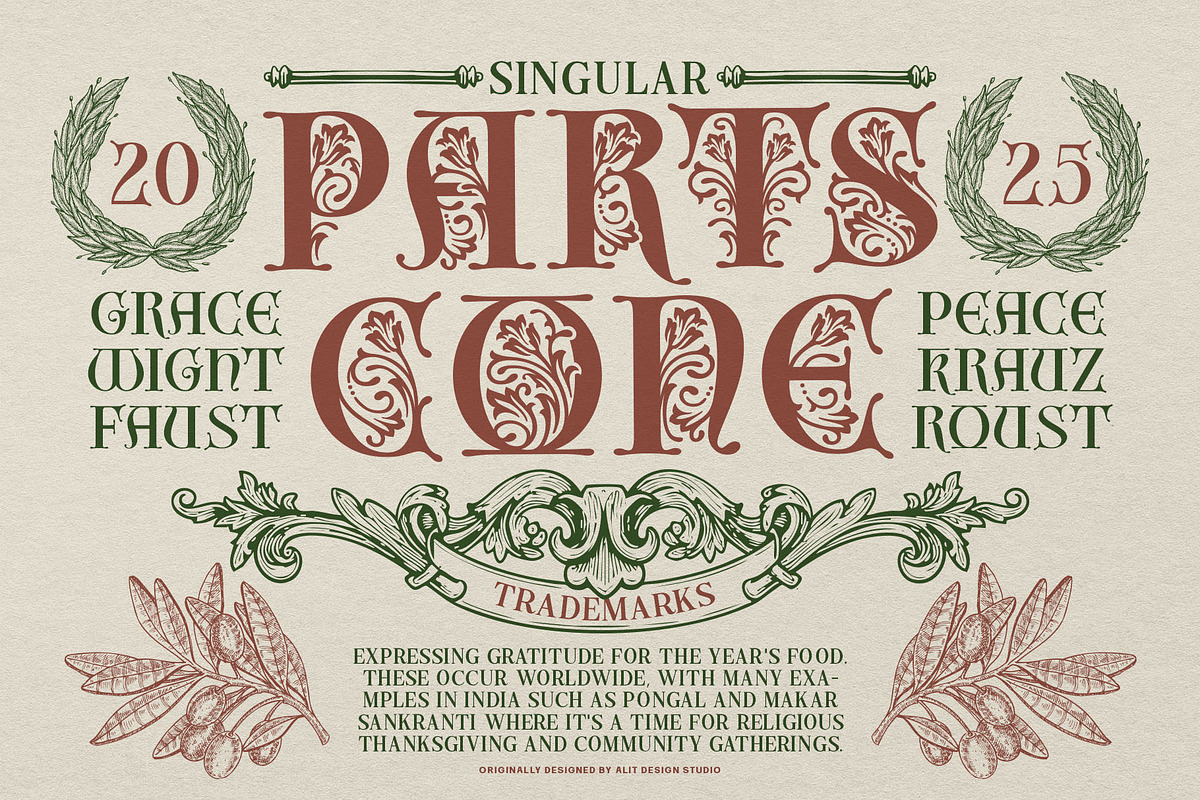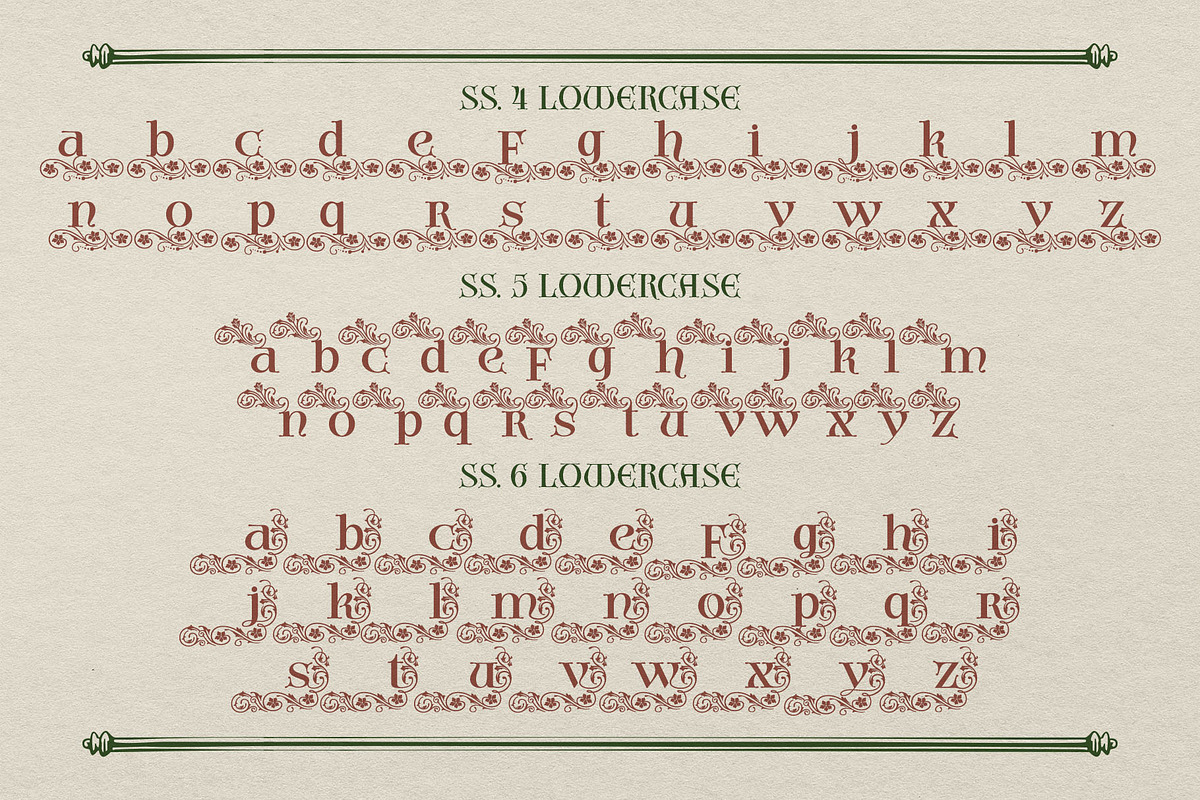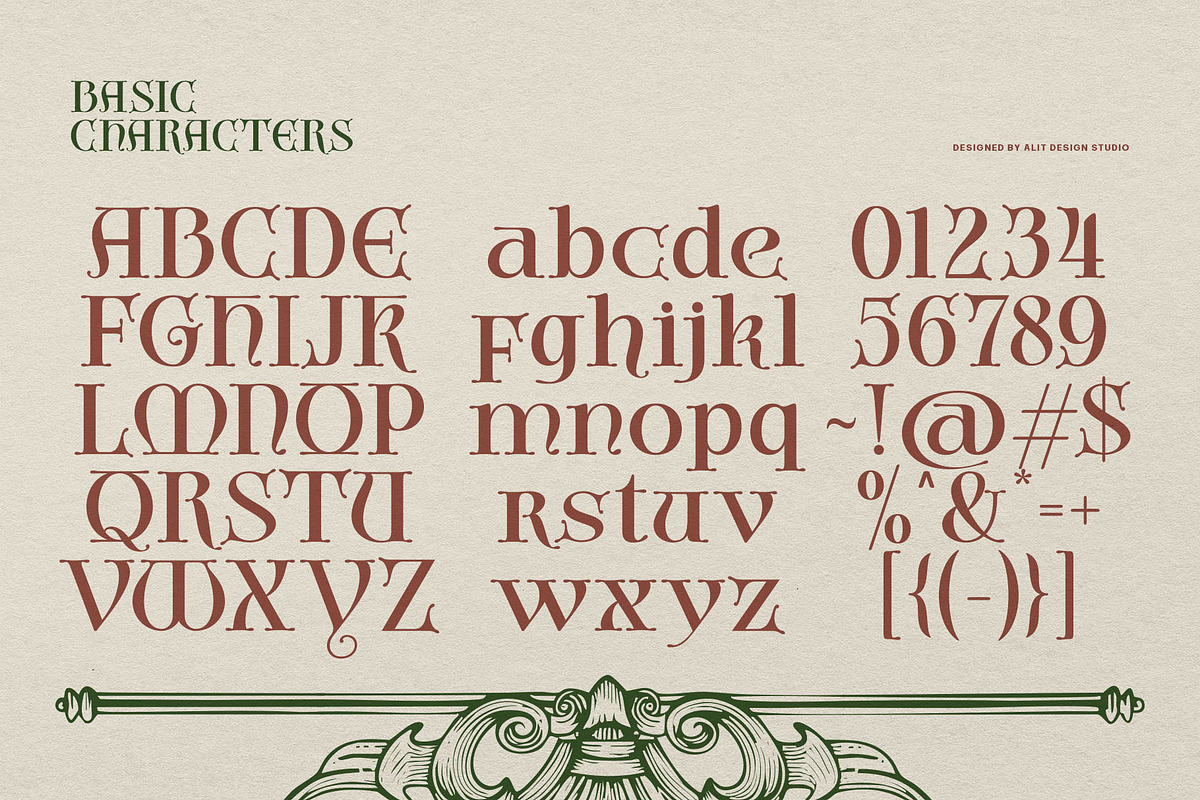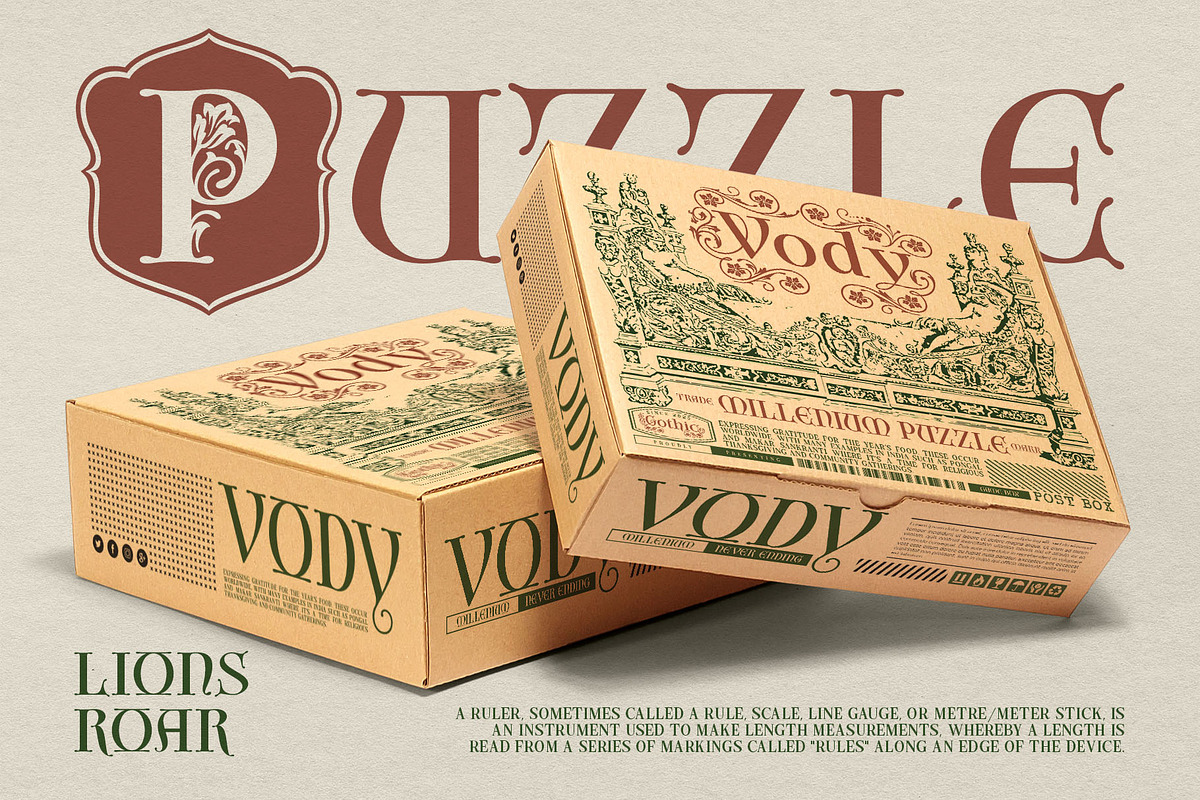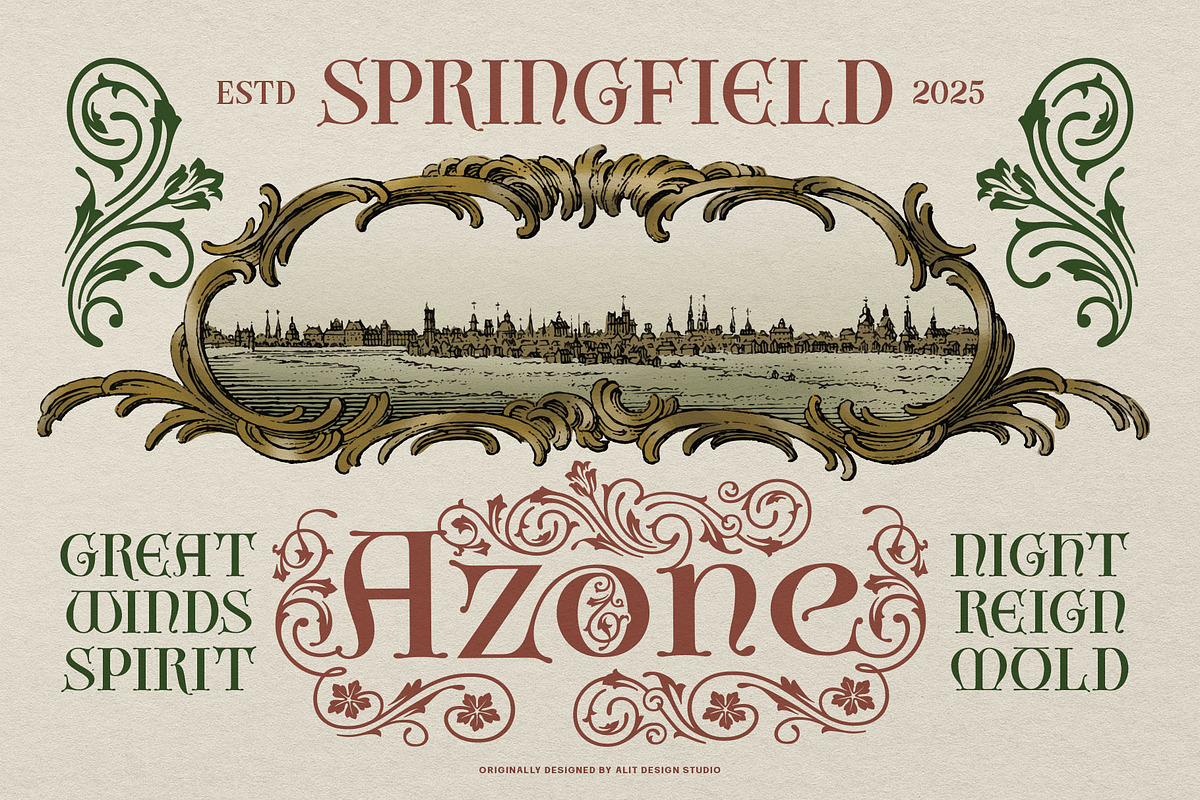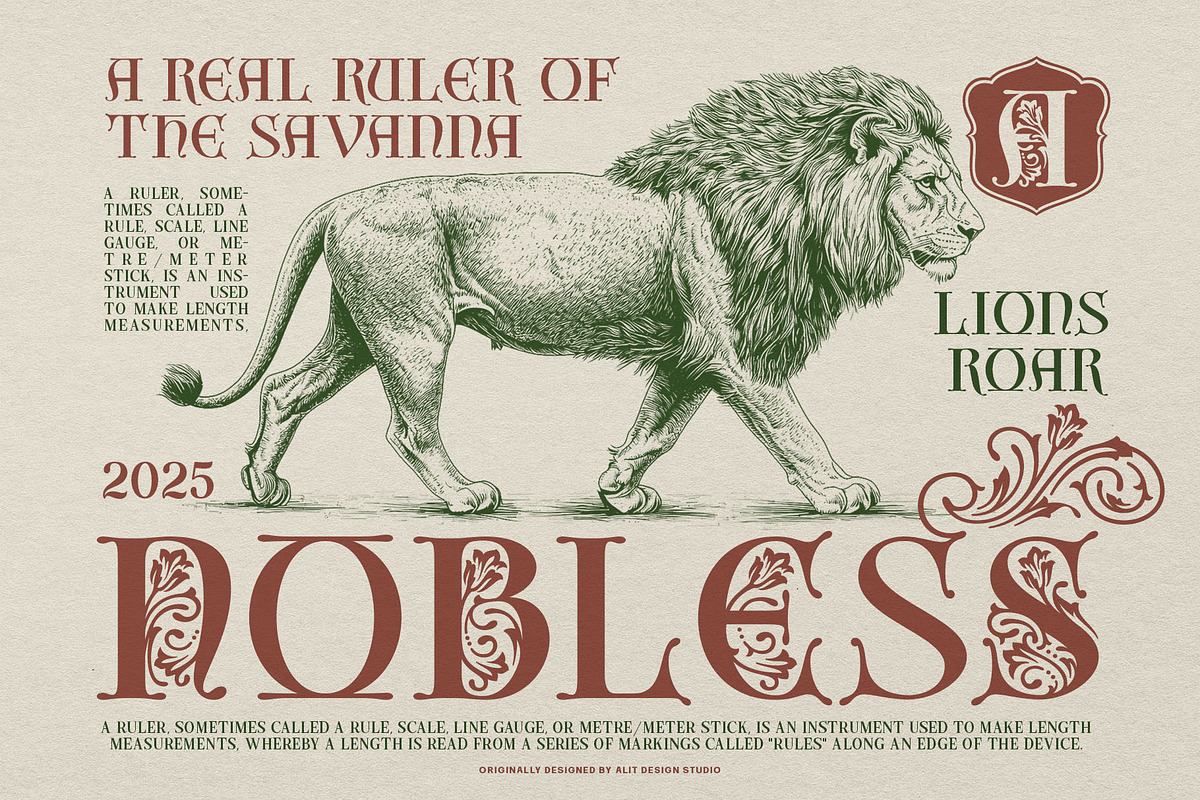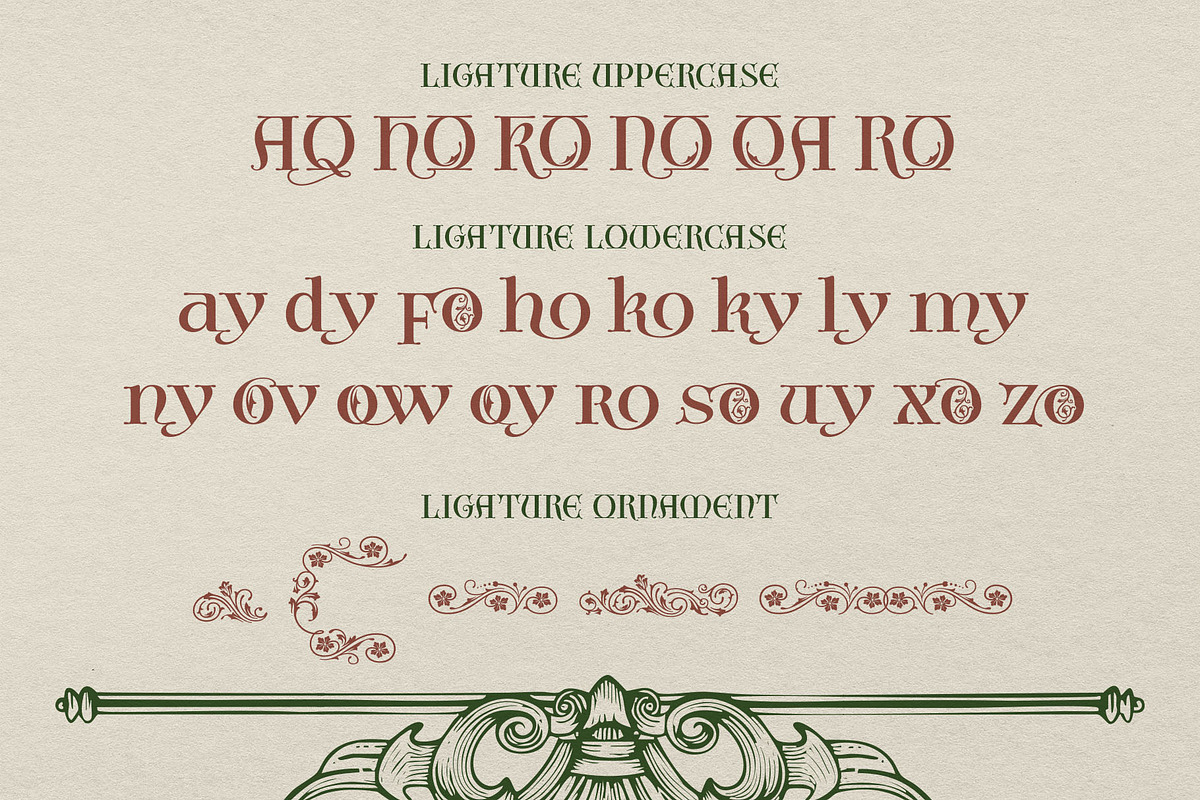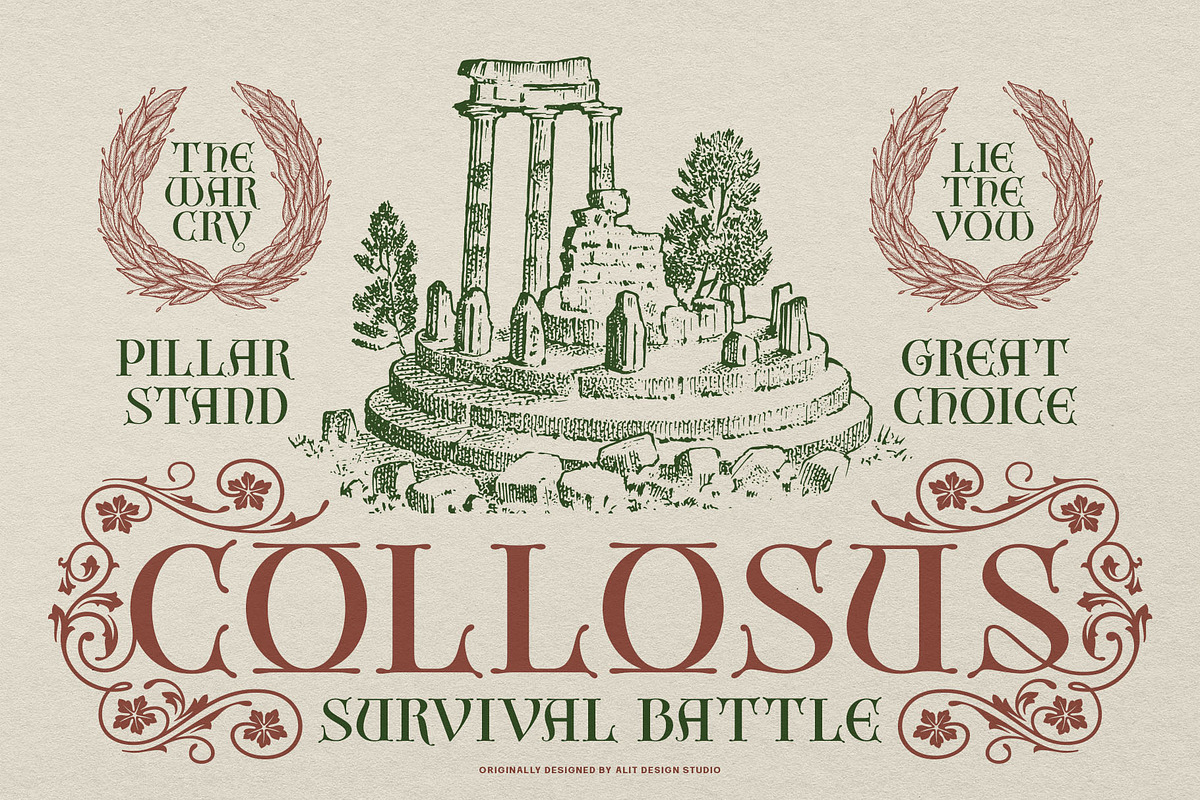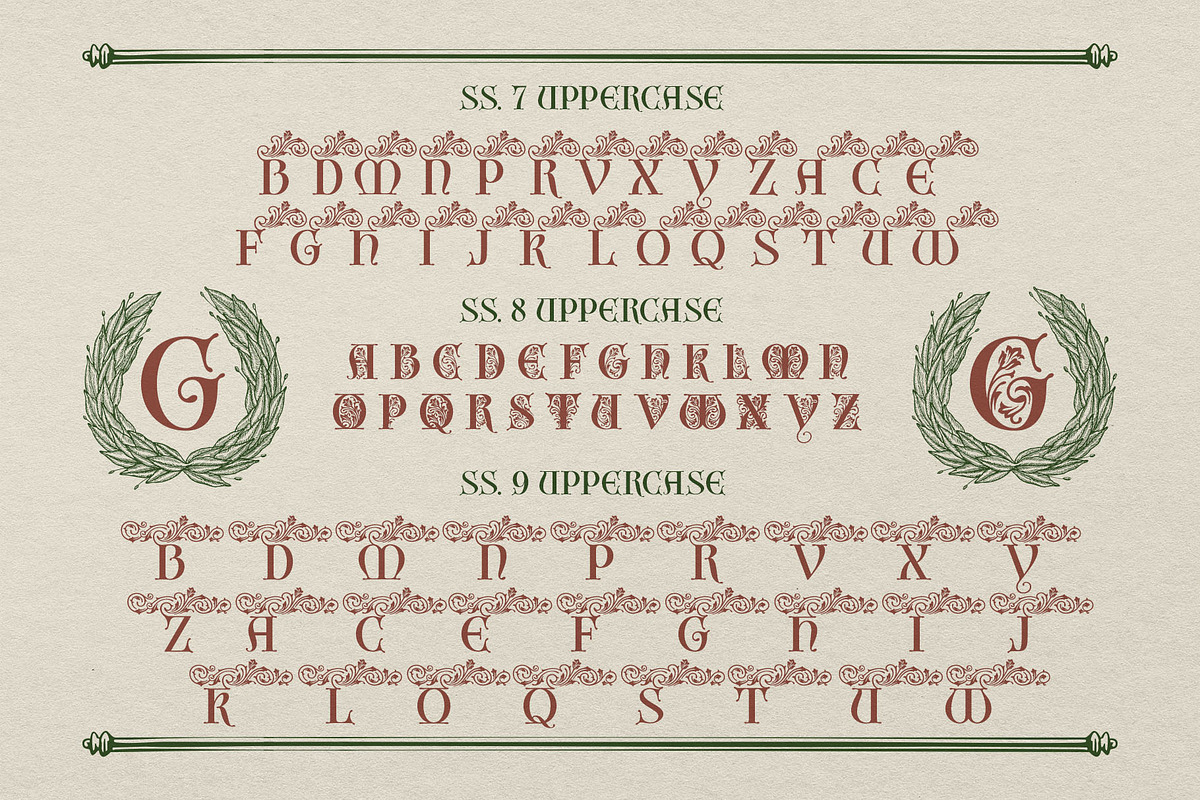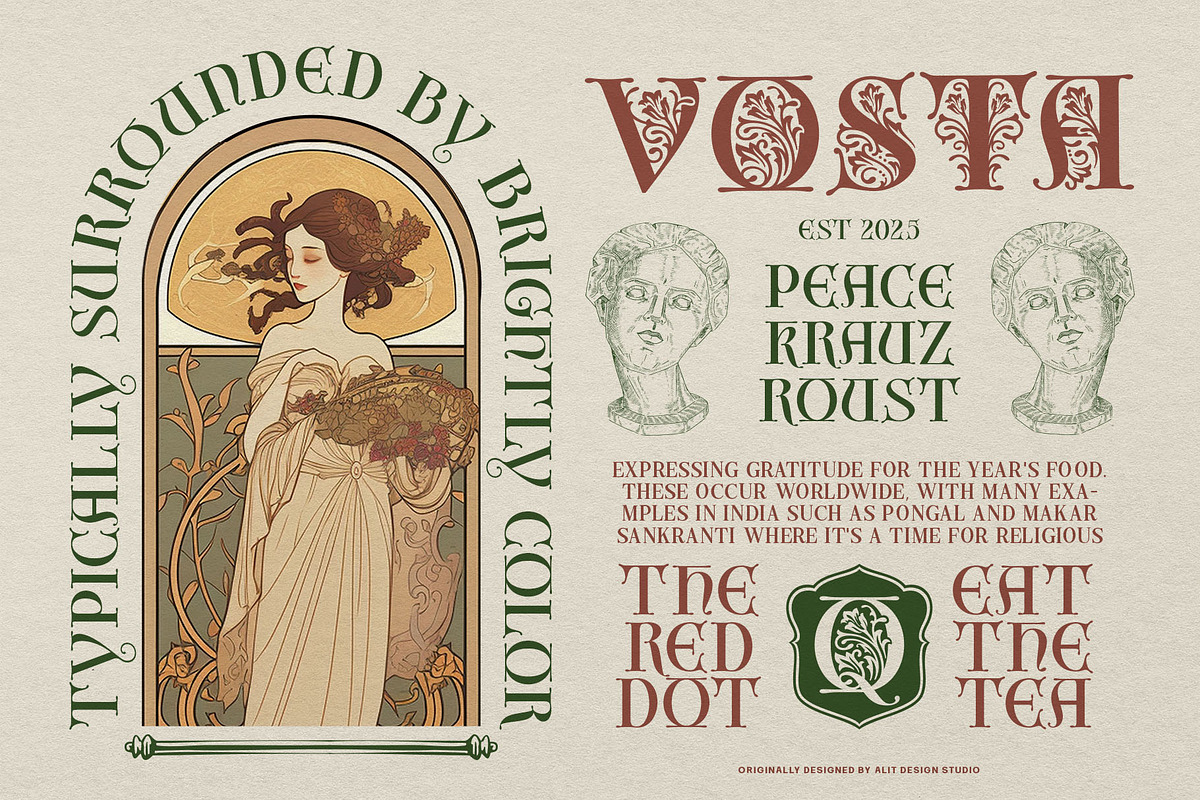
Verond Son A Symphony of Classical
Verond Son: A Symphony of Classical Ornament
Step into a world of timeless elegance with Verond Son, a decorative display font where every letter tells a story of history and artistry. Inspired by the intricate beauty of classical design, Verond Son is crafted for those who seek to infuse their work with a touch of grandeur and sophisticated charm.
Each character in the Verond Son family is a masterpiece of detail, featuring enchanting ornaments and graceful flourishes that capture the essence of vintage typography. This font is not merely for writing; it is for creating an unforgettable visual experience. With its elaborate ligatures and extensive stylistic alternates, Verond Son gives you the creative freedom to design truly unique and captivating compositions.
Perfect for a wide range of applications, Verond Son excels in:
- Luxury Branding & Logos: Create an identity that speaks of heritage and quality.
- Classic Book Covers & Posters: Evoke the atmosphere of another era with stunning headlines.
- Elegant Invitations & Certificates: Add a touch of formal beauty to any special occasion.
- Vintage Packaging & Labels: Make your products stand out with a distinct and artistic flair.
- Expressive Editorial Design: Bring a powerful and decorative voice to your layouts.
With an extensive set of over 954 glyphs, including full uppercase and lowercase alternates, multilingual support, and a treasure trove of decorative elements, Verond Son provides all the tools you need to bring your most ambitious artistic visions to life.
Embrace the charm of the past and let the intricate beauty of Verond Son elevate your next design project.